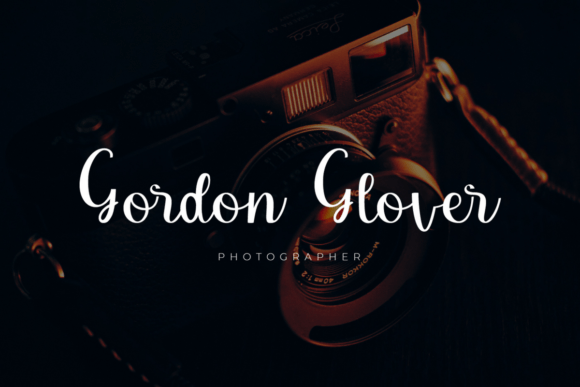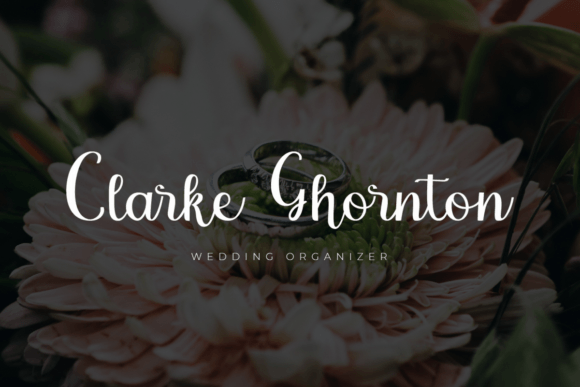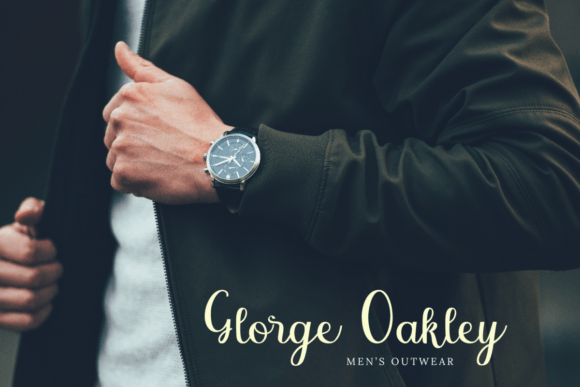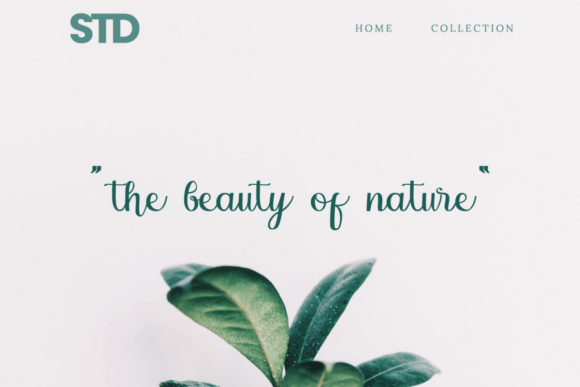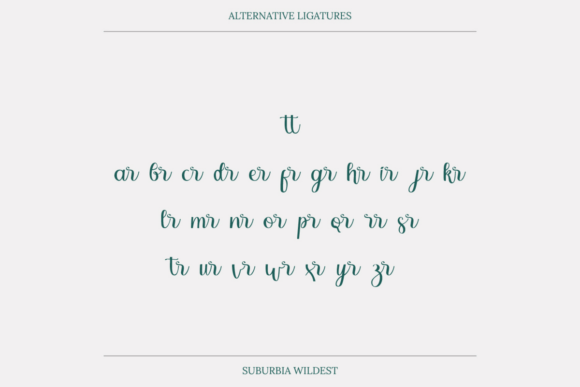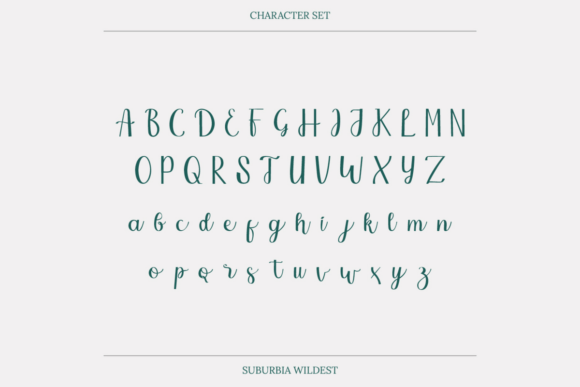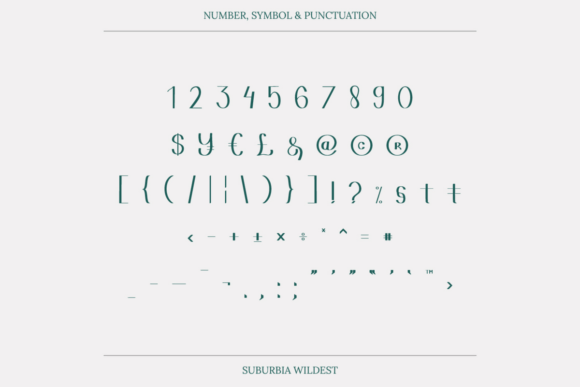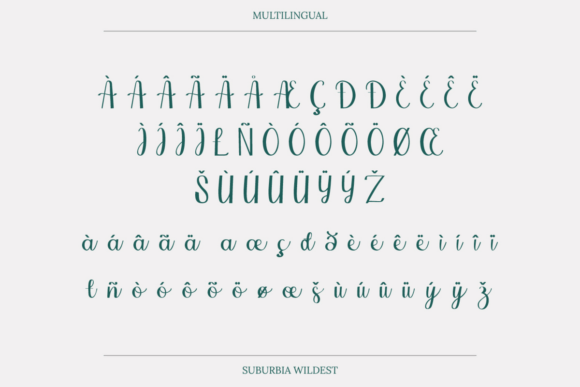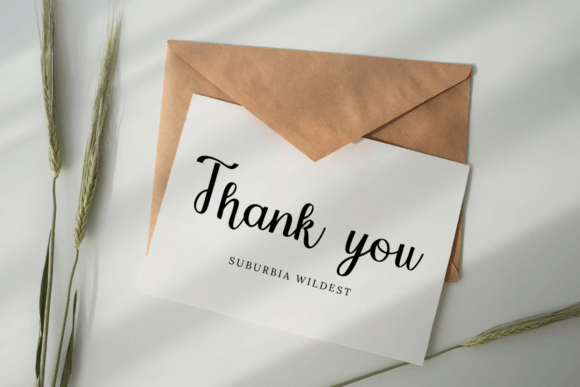
Suburbia Wildest Font
About Suburbia Wildest Font
Introducing Suburbia Wildest, a beautiful script font inspired by Troye Sivan’s song titled “Suburbia” and the essence of a handwritten font named “Wildest Dream.” Crafted with unique characters and consistency, Suburbia Wildest captures the untidy creatures, grunge vibes, and authentic old lettering associated with the concept of the suburban edge. The name “Suburbia Wildest” reflects both its inspiration and the wild, untamed charm it brings to your designs.
The font’s adaptation and unique characteristics make it a perfect choice for a variety of applications. Whether you’re working on lettering, postcards, writing projects, greeting cards, or anything that requires a touch of authenticity, Suburbia Wildest is designed to add a hint of the “old” and an authentically handwritten feel to your creations.
Suburbia Wildest draws inspiration not only from the song “Suburbia” but also from the handwritten font “Wildest Dream.” The result is a script font that captures the edge of the city area—depicted through untidy creatures, grunge vibes, and authentic old lettering. The mix of untidy, wavy, and round-sharp pen lettering creates a unique and captivating aesthetic.
Embrace Suburbia Wildest to infuse your designs with an old-world charm and authenticity. Let its wild and untamed nature enhance your lettering, turning ordinary projects into visually striking pieces. Whether you’re aiming for a vintage look or want to add character to your designs, Suburbia Wildest is the perfect choice to make things look more “old” and “authentically” written.